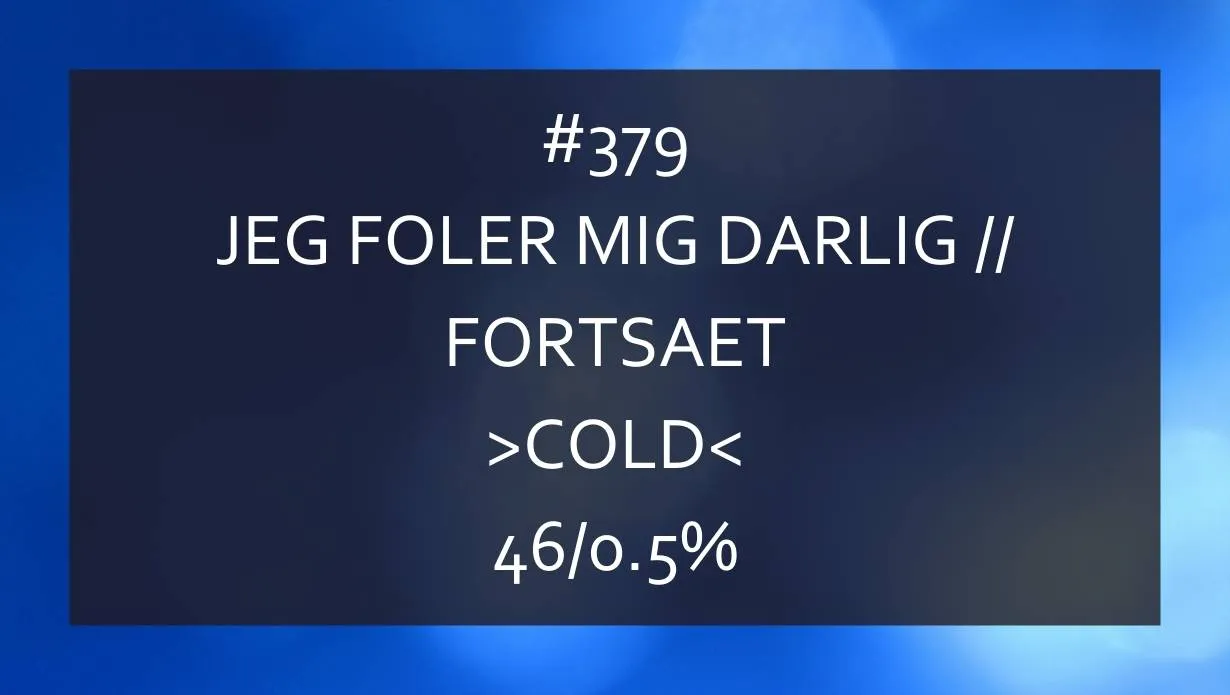
Corbel Font is a sans-serif typeface created by Josh Hadley and released through Microsoft. It is named for the Spanish baroque architect and sculptor Juan Corbal. The font is notable for its humanist design, as well as its support of Latin, Cyrillic, and Greek character sets.
This is available in four weights—regular, bold, italic, and bold italic—and is best used for body copy or headlines. The font can be licensed for both personal and commercial use. This font is also paired with the Gill Sans Font.
| Designer | Josh Hadley |